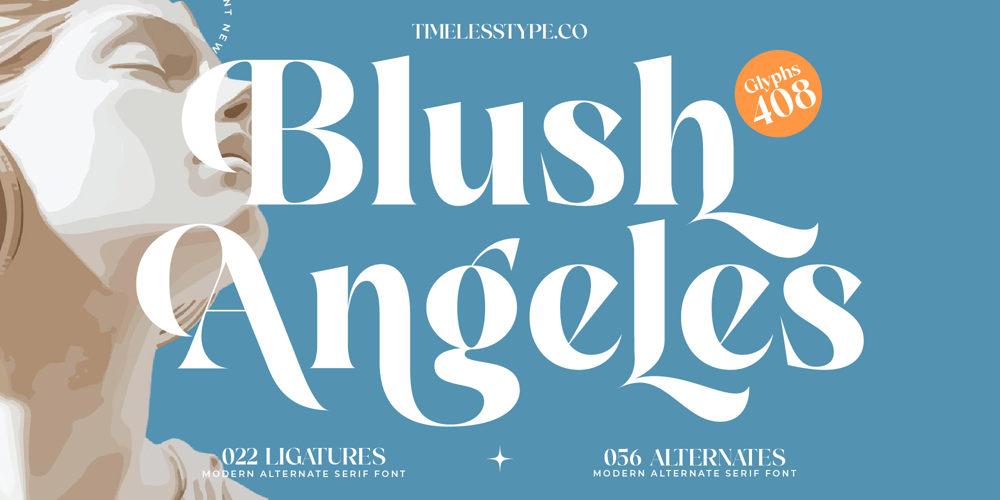
Blush Angeles
Blush Angeles font
Blush Angeles Font Family was designed by Heru Utama Putra and published by Timelesstype Studio. Blush Angeles contains 2 styles and family package options. Blush Angeles – Modern Alternate Serif Font , from Timelesstype , Suitable for any projects such as: logos, branding projects, homeware designs, product packaging, mugs, quotes, posters, shopping bags, t-shirts, book covers, name card, invitation cards, greeting cards, label, photography, watermark, special events, and all your other luxury and beautiful projects that need a Luxury Serif taste.